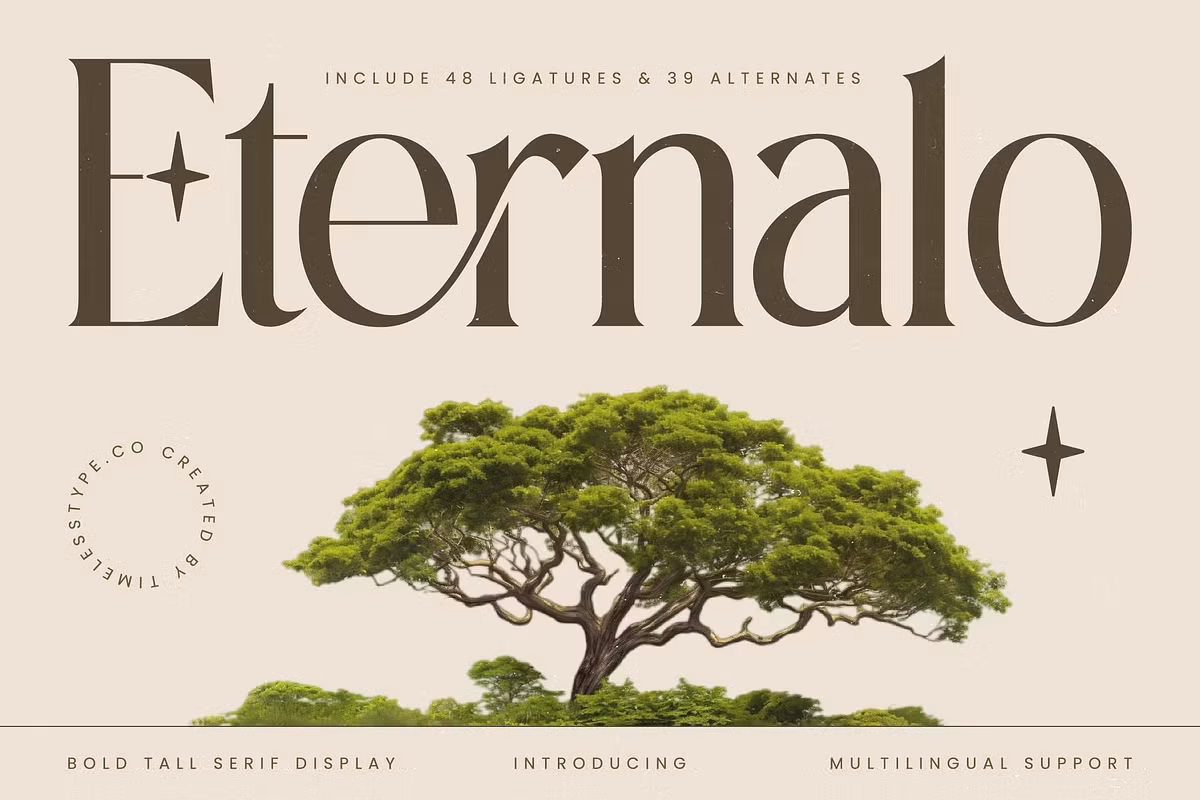
Eternalo Bold Tall Serif Display Font Free Download is a striking, tall serif font designed for high-impact displays. Featuring bold, sharp lines and a strong, contemporary feel, this font is perfect for making a statement in branding, headlines, logos, posters, and any project that demands attention.
Its tall, geometric design adds sophistication and modernity, while the bold weight ensures your text stands out. Whether you're working on a luxury brand, an artistic project, or any creative design, Eternalo gives your typography the perfect balance of elegance and power.